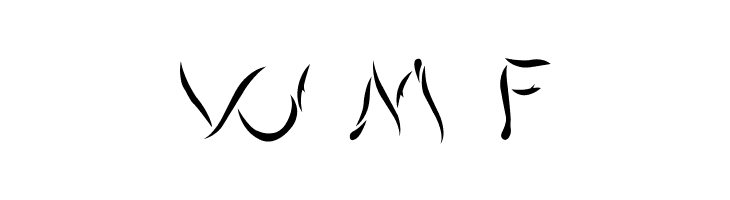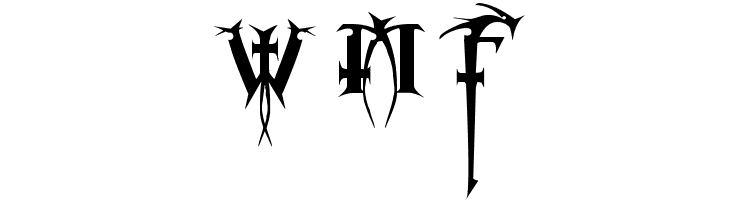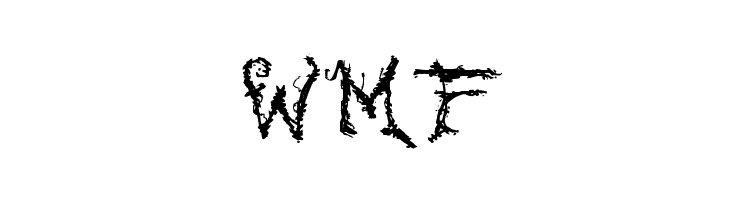
A jagged, thorn-like font with an aggressive and rebellious style.
A bold, gothic-inspired script font with intricate, thorn-like details.
A gothic, decorative font with sharp, thorn-like edges and a dramatic style.
A thorny, edgy font with jagged, chaotic characters.
A bold, thorny, and chaotic font ideal for horror themes.
A gothic, thorny font with intricate, sharp embellishments and dramatic flourishes.
A bold, condensed, and distorted decorative font with a jagged, thorn-like texture.
A bold, gothic font with sharp, thorn-like details and a macabre aesthetic.
A bold, edgy font with sharp, thorn-like extensions and a gothic aesthetic.
A decorative font with thorn-like, jagged edges for a wild and dramatic look.
A decorative, thorny font with gothic influences and bold, intricate details.
A thorny, gothic-style font with intricate, jagged edges.
A bold, jagged font with thorn-like extensions for a wild, energetic look.
A gothic, decorative font with thorn-like embellishments and dramatic flair.
An organic, vine-like font with intricate, thorny details.
A bold, edgy font with thorn-like, angular strokes.
A gothic-inspired font with thorn-like embellishments and bold, dramatic strokes.
A bold, thorny font with a gothic, horror-inspired aesthetic.
A thorny, jagged font with a dark, edgy aesthetic.
A bold, thorn-like font with sharp, jagged edges, perfect for horror themes.
A gothic, medieval-inspired font with bold, thorn-like embellishments.
A decorative font with sharp, thorn-like elements and club-shaped adornments.
A dynamic and artistic font with sharp, thorn-like extensions and flowing forms.
A bold, thorny decorative font with an organic, chaotic style.
A jagged, thorn-like font with a rugged, edgy appearance.
A decorative font with thorny embellishments and mystical swirls, ideal for occult-themed designs.
A bold, edgy font with sharp, thorn-like details and a gothic, tribal aesthetic.
A jagged, edgy font with sharp, thorn-like characters.
A dramatic, thorny font with a chaotic and edgy style.
A bold, thorny, and gothic font with intricate, jagged edges.
A thorny, decorative font with sharp, barbed wire-like extensions.